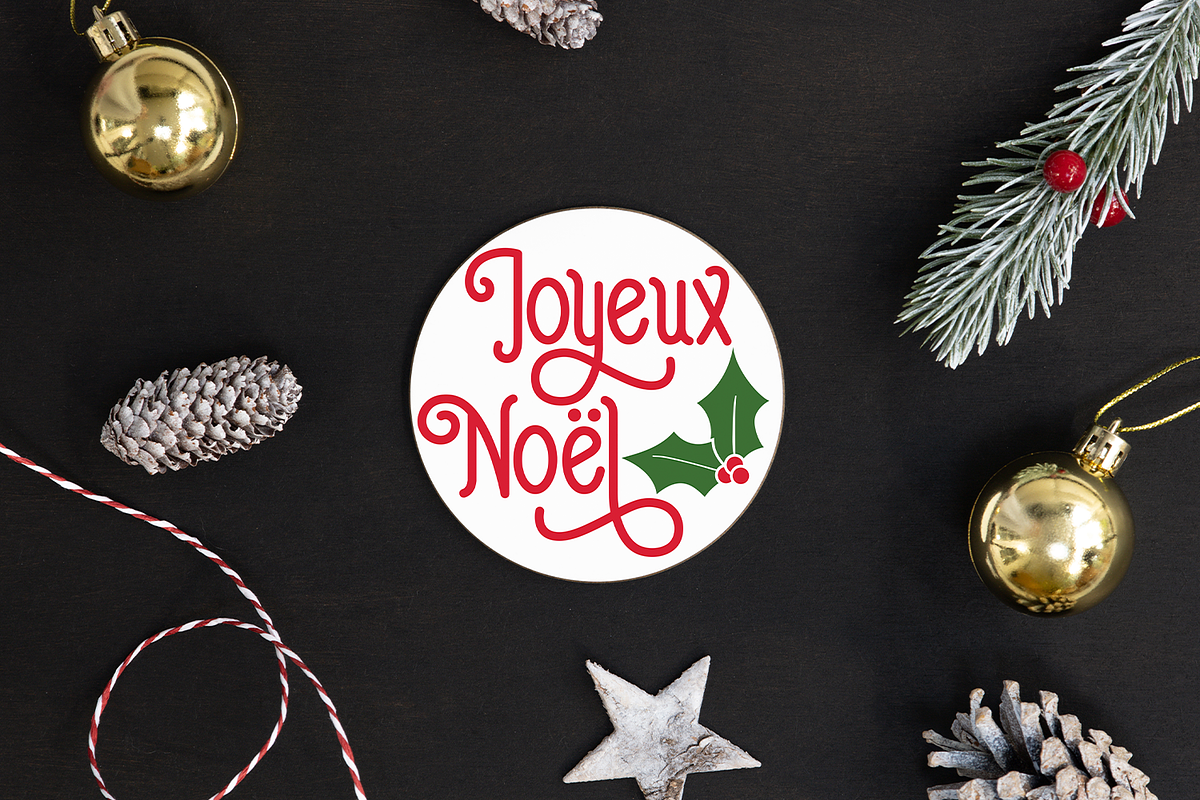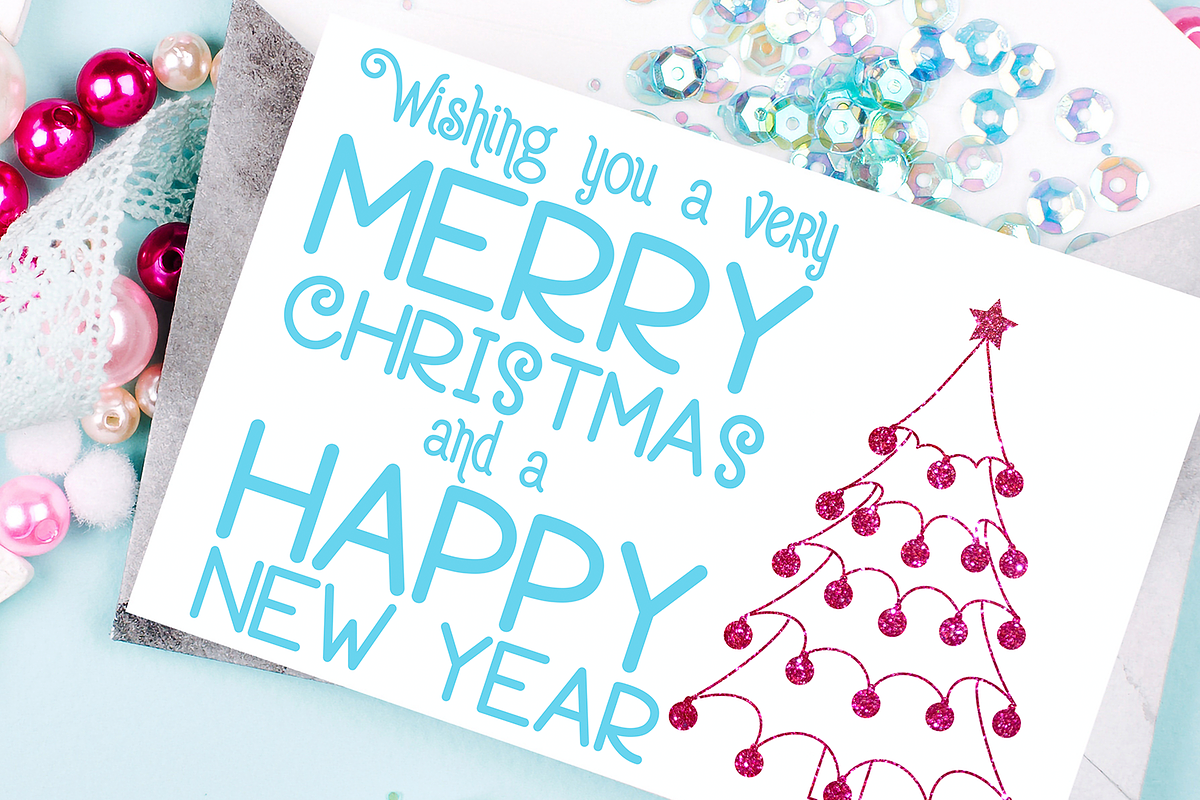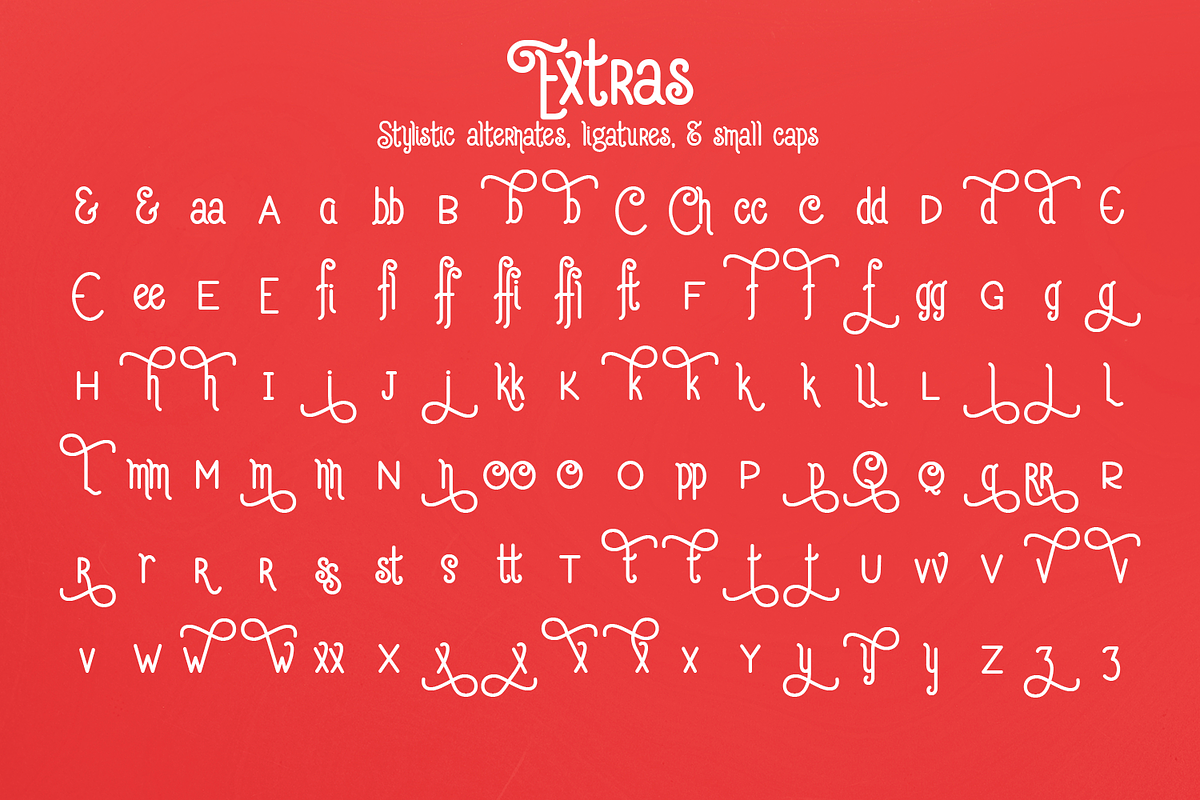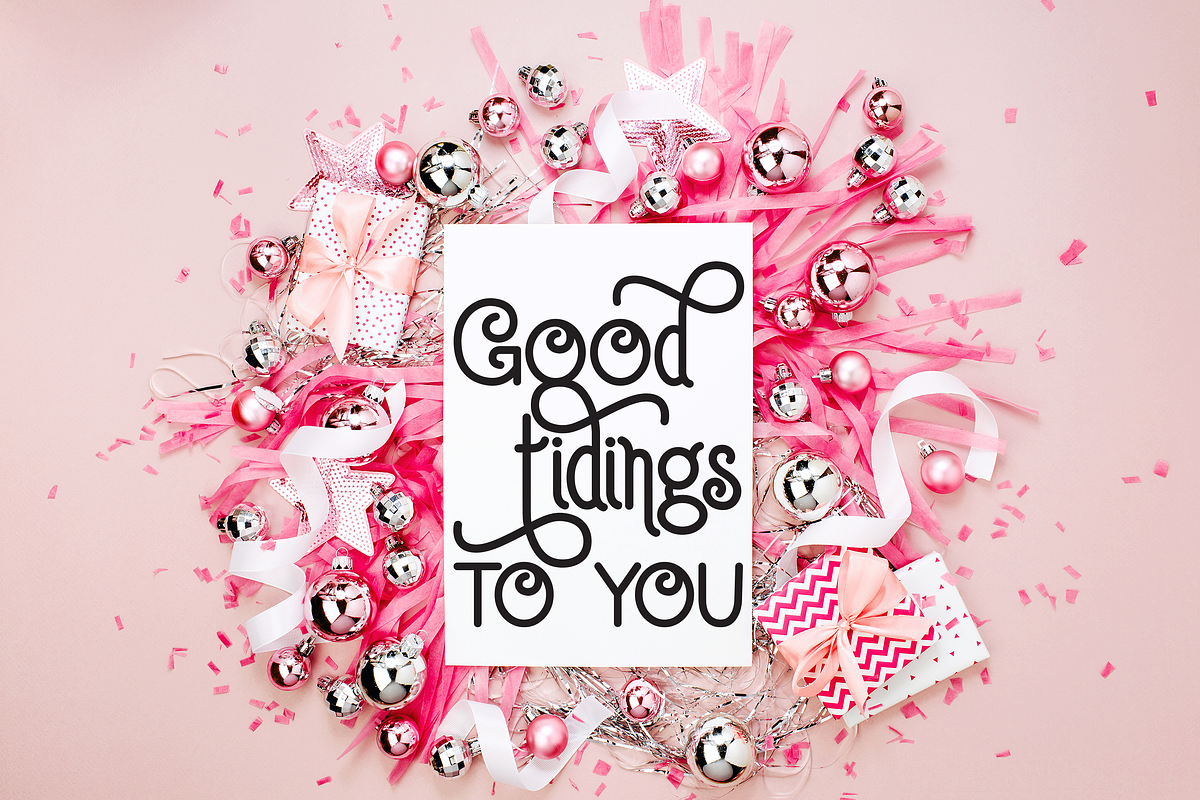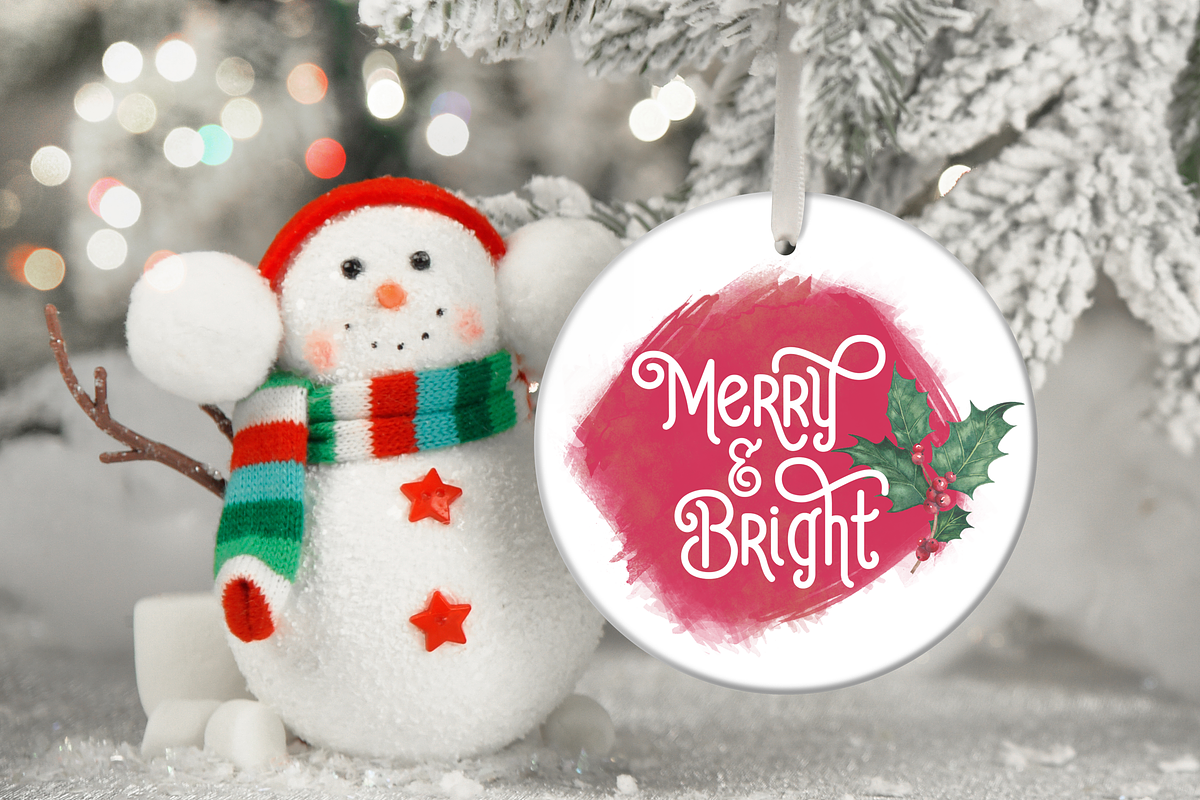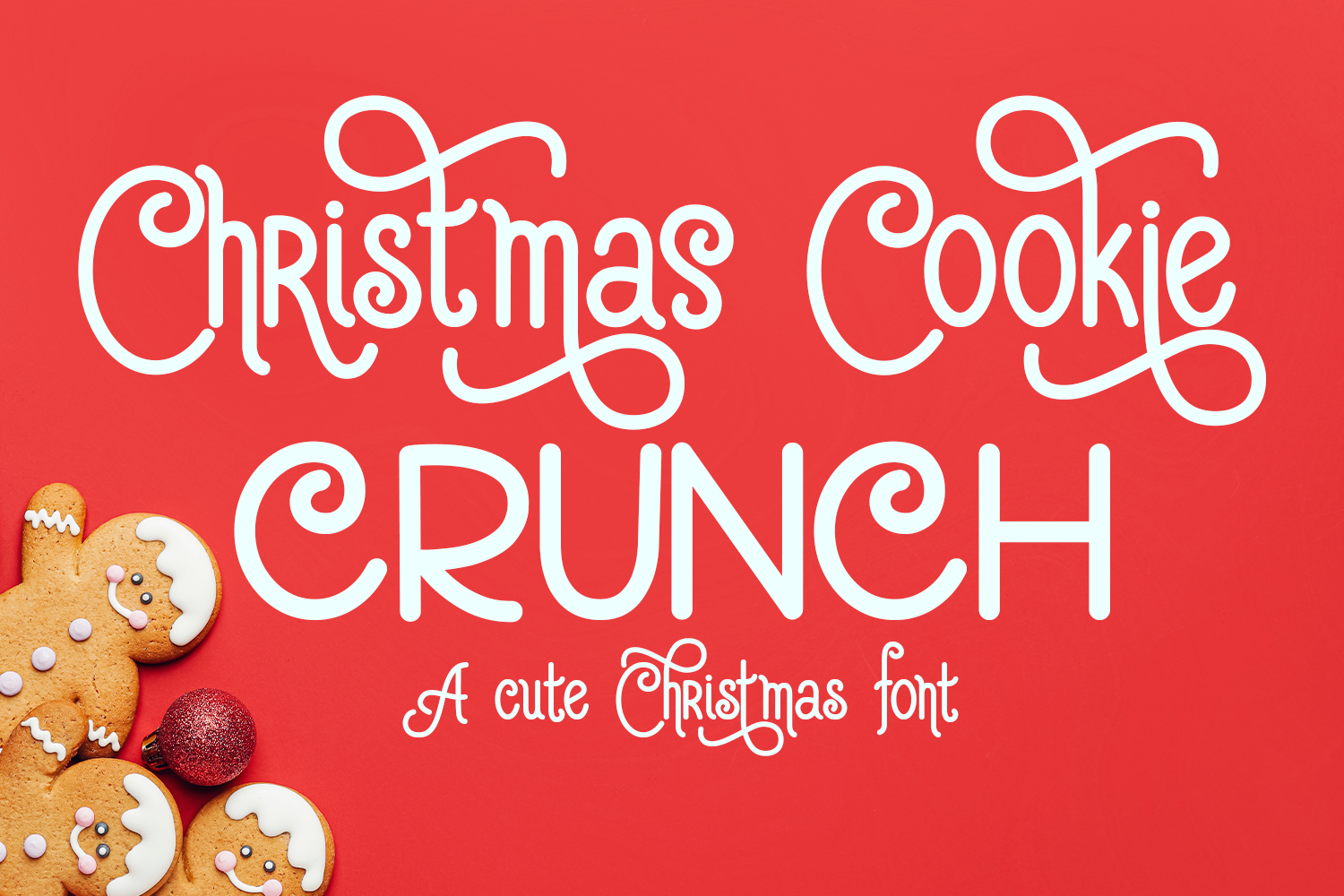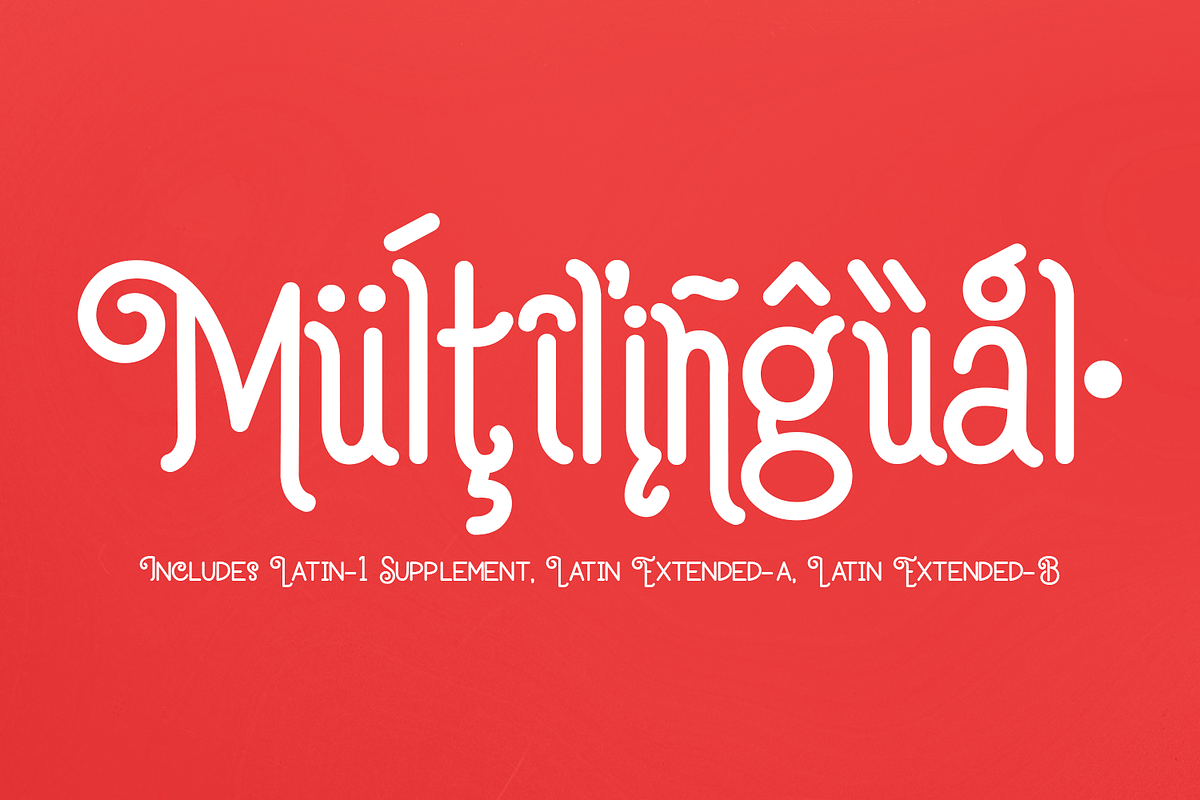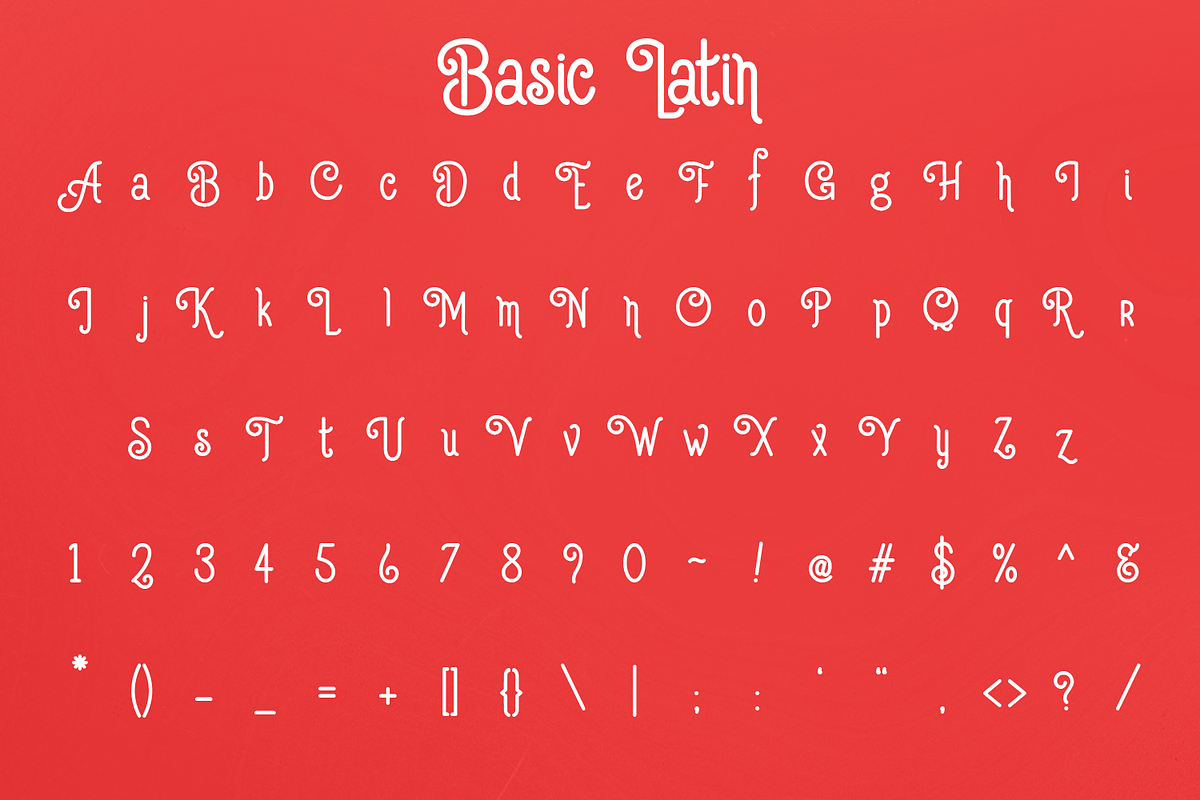
Christmas Cookie Crunch Font
Say a holly jolly hello to Christmas Cookie Crunch, a cute Christmas font!
This cute, fancy font is perfect for Christmas designs. Use it in your cards, monogrammed gifts, signs, and more!
This font has 620 glyphs total with support for foreign languages and includes more than 100 stylistic alternates, standard ligatures, discretionary ligatures, and small caps, so you can use Open Type to create unique and stylish typography.